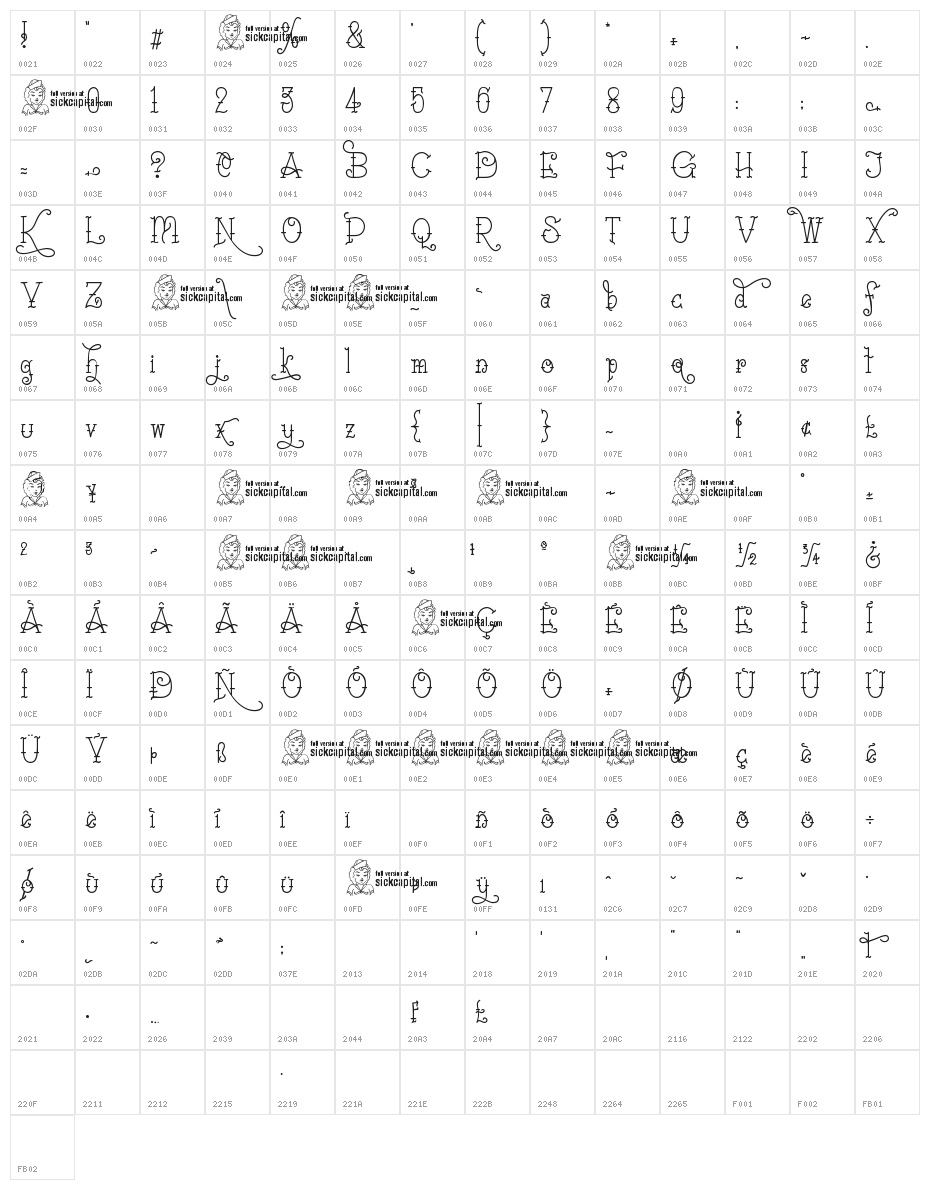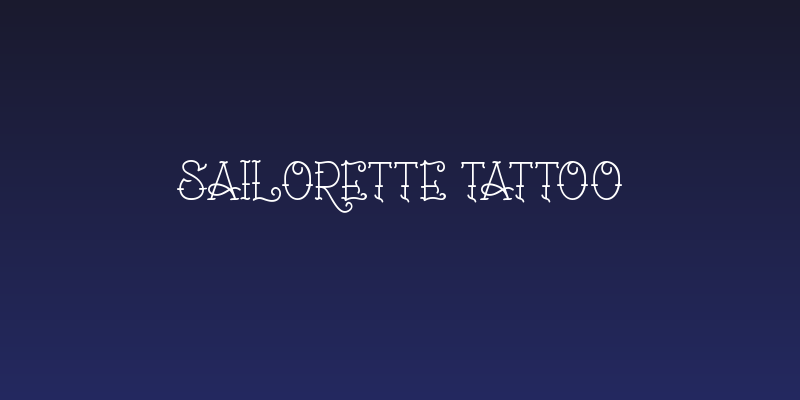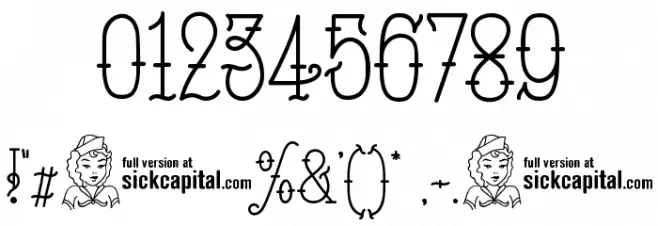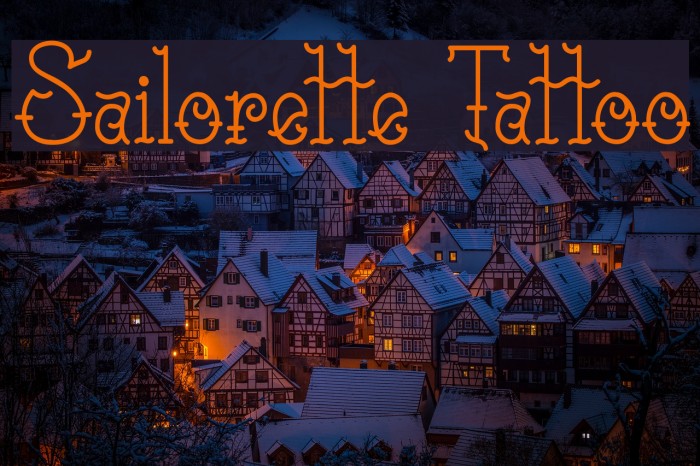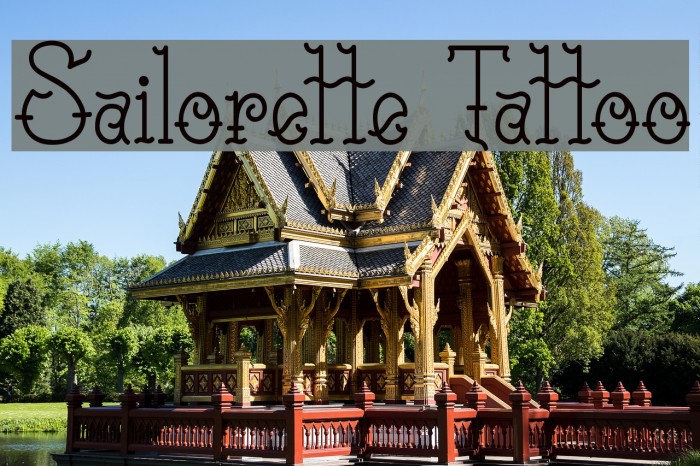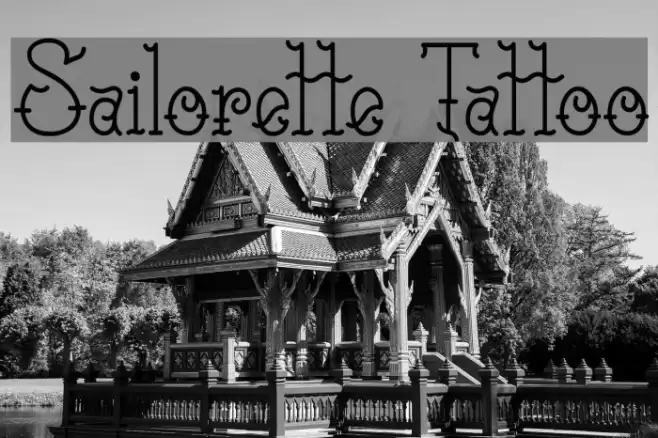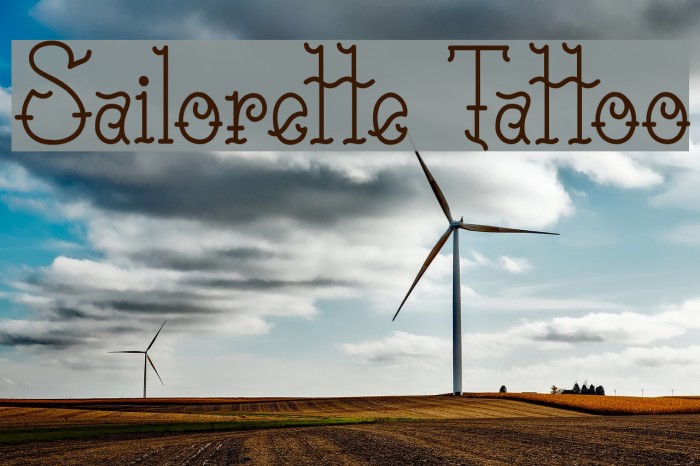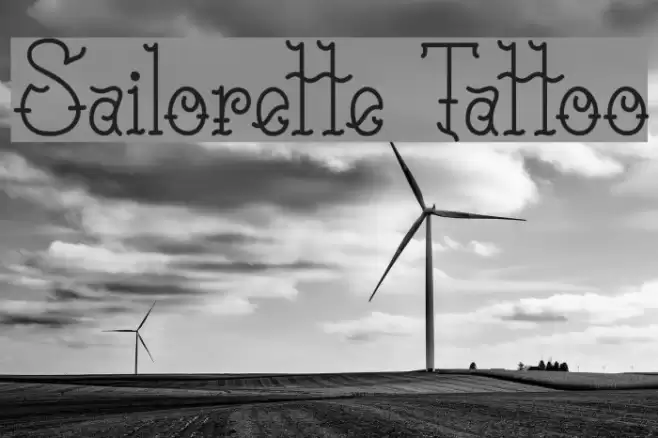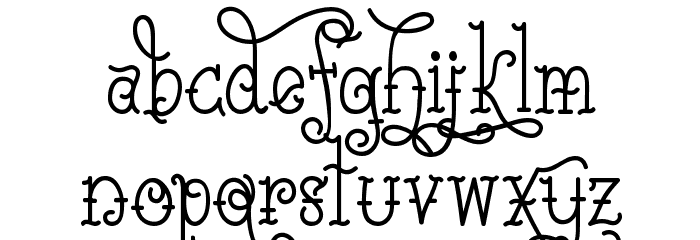
Sailorette Tattoo Font
This font features a decorative and whimsical style, characterized by its intricate curls and flourishes. The uppercase letters are bold and ornate, with unique embellishments that give each character a distinct personality. The lowercase letters maintain a similar decorative flair, with some characters featuring extended loops and swirls. The numbers are consistent with the overall style, offering a playful yet elegant appearance. Special characters are also adorned with decorative elements, making them stand out. This font is ideal for projects that require a touch of creativity and artistic flair.
| Proposed Projects | Ideal for tattoo designs, creative branding, artistic posters, and decorative invitations. |